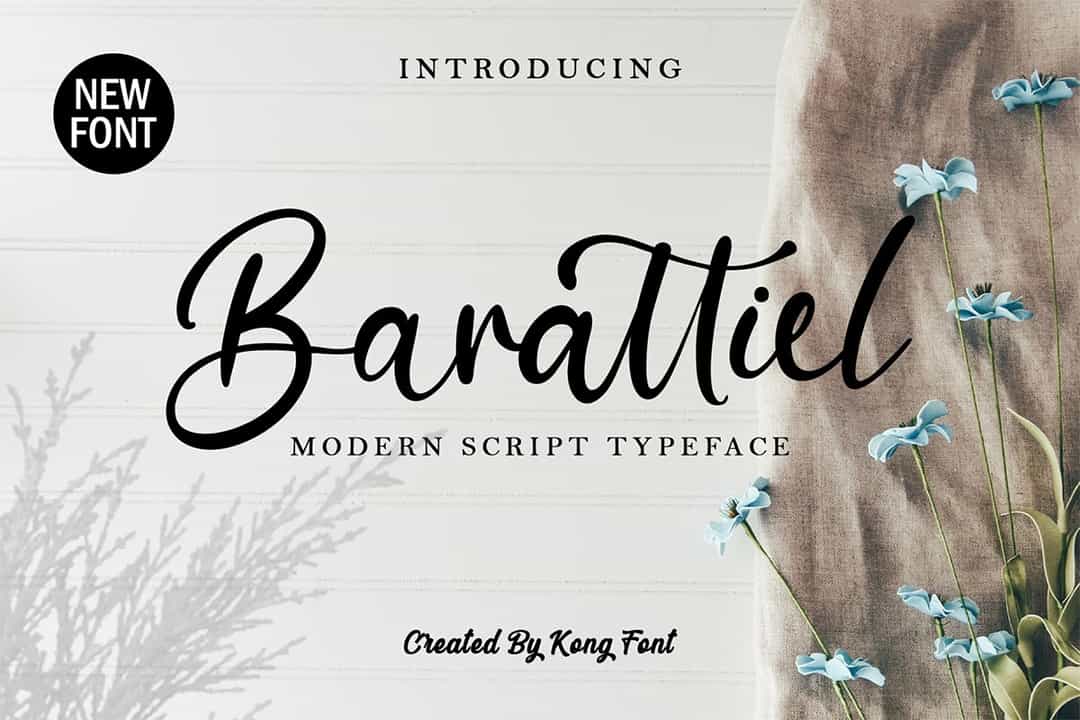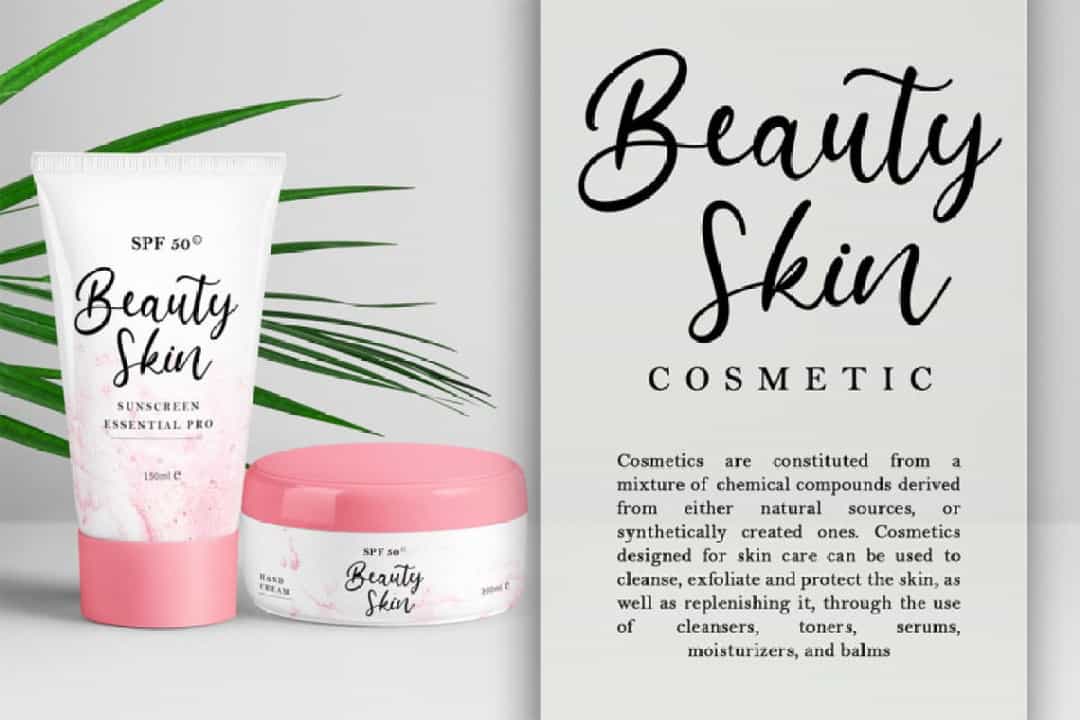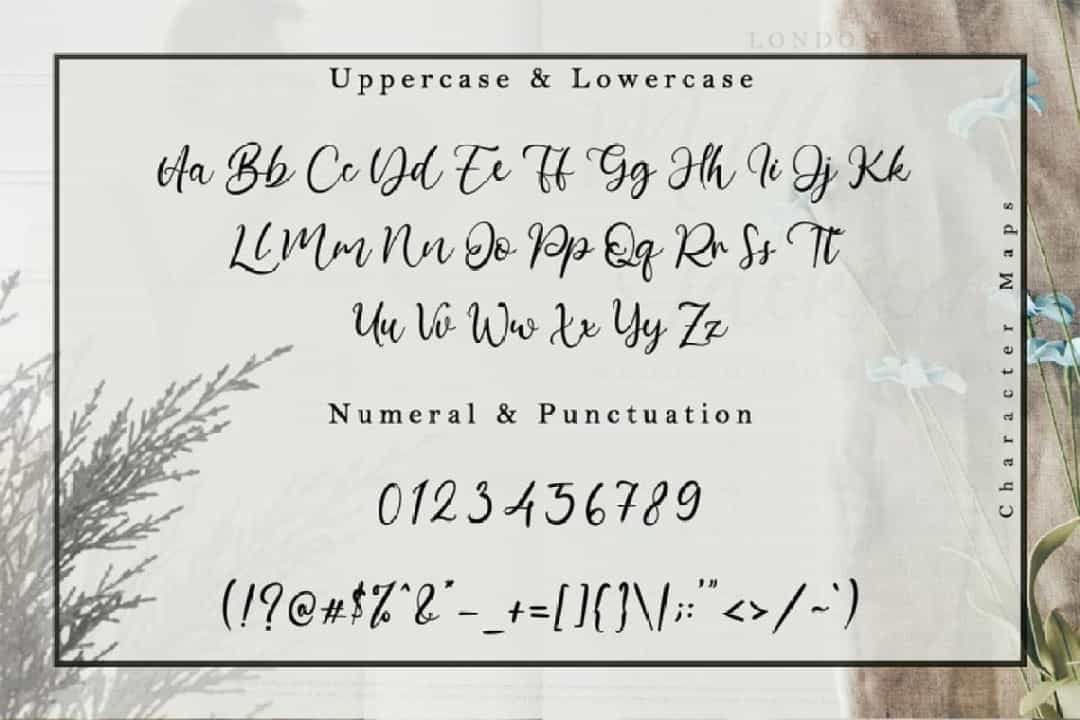
Barattiel script font is perfect for creating adorable invitations to birthday parties, weddings and any other celebration. A versatile set of numbers and letters that can be utilized in projects. Also great as Logotypes for Branding Designs such as T-Shirt, Apparel designs, Posters, Magazine covers, signs advertising designs as well as general brand projects.